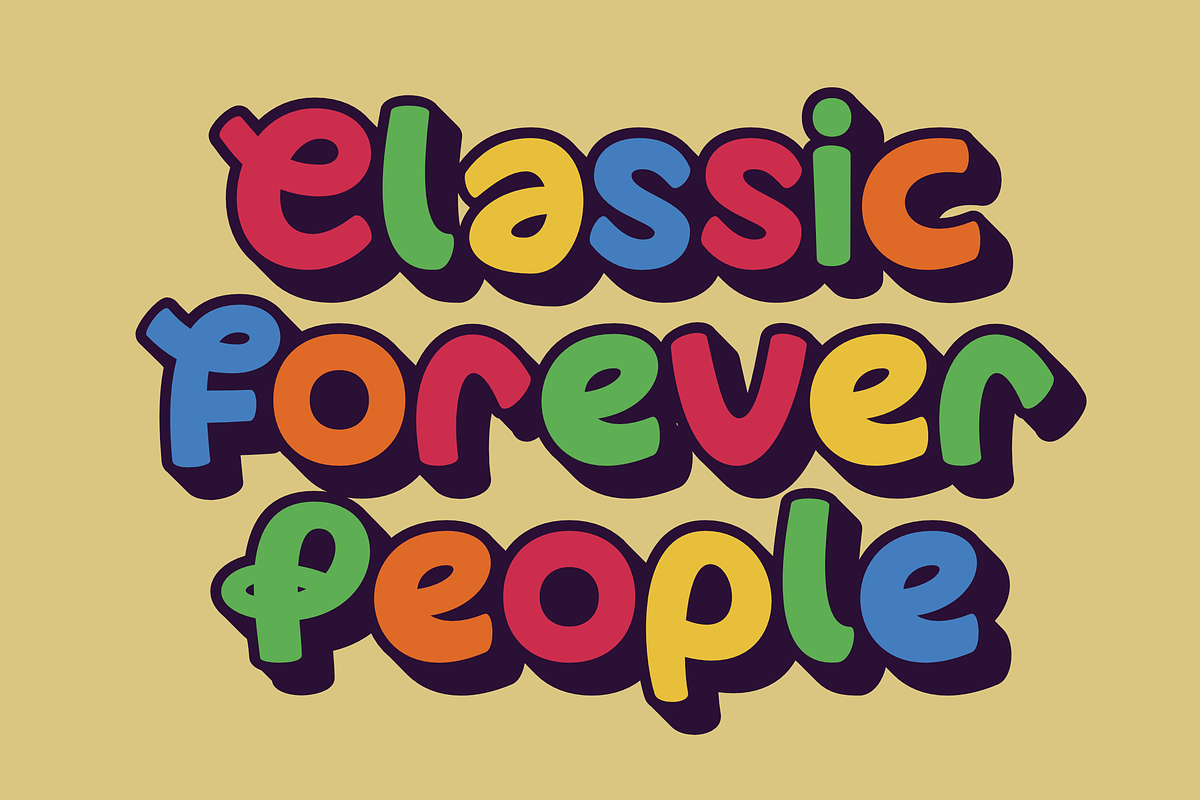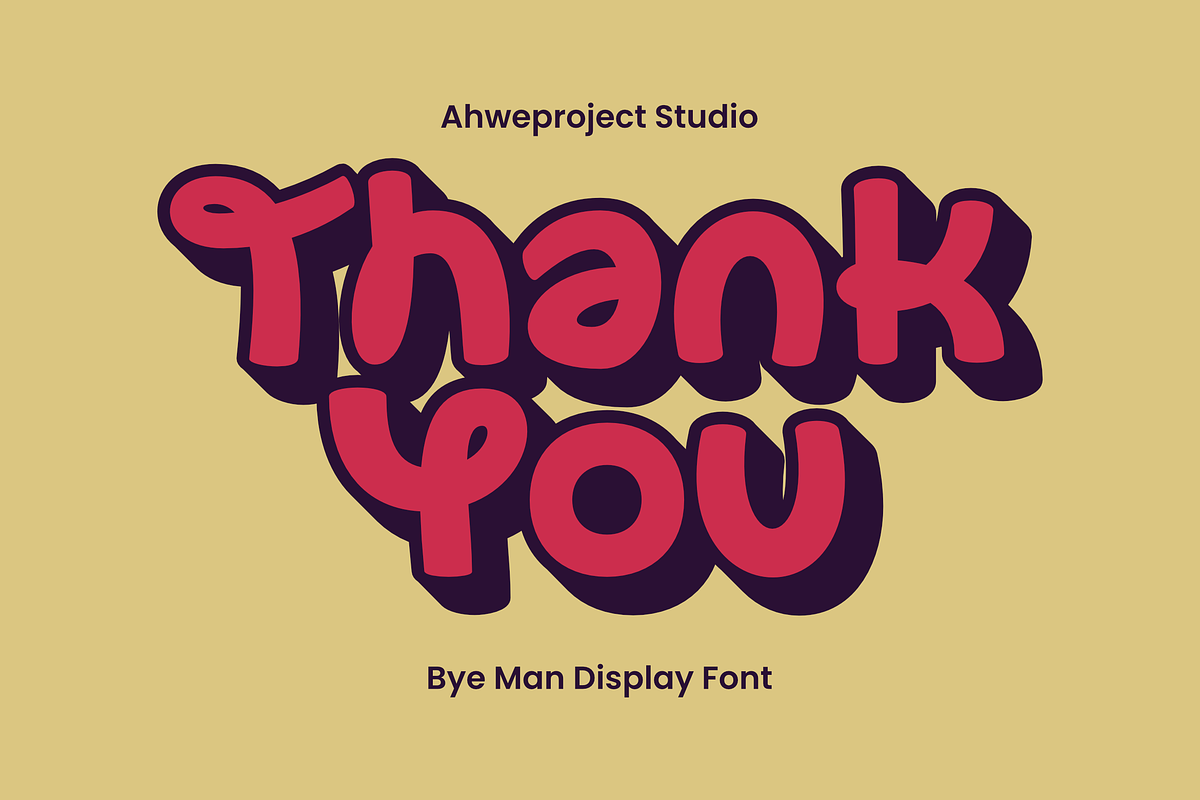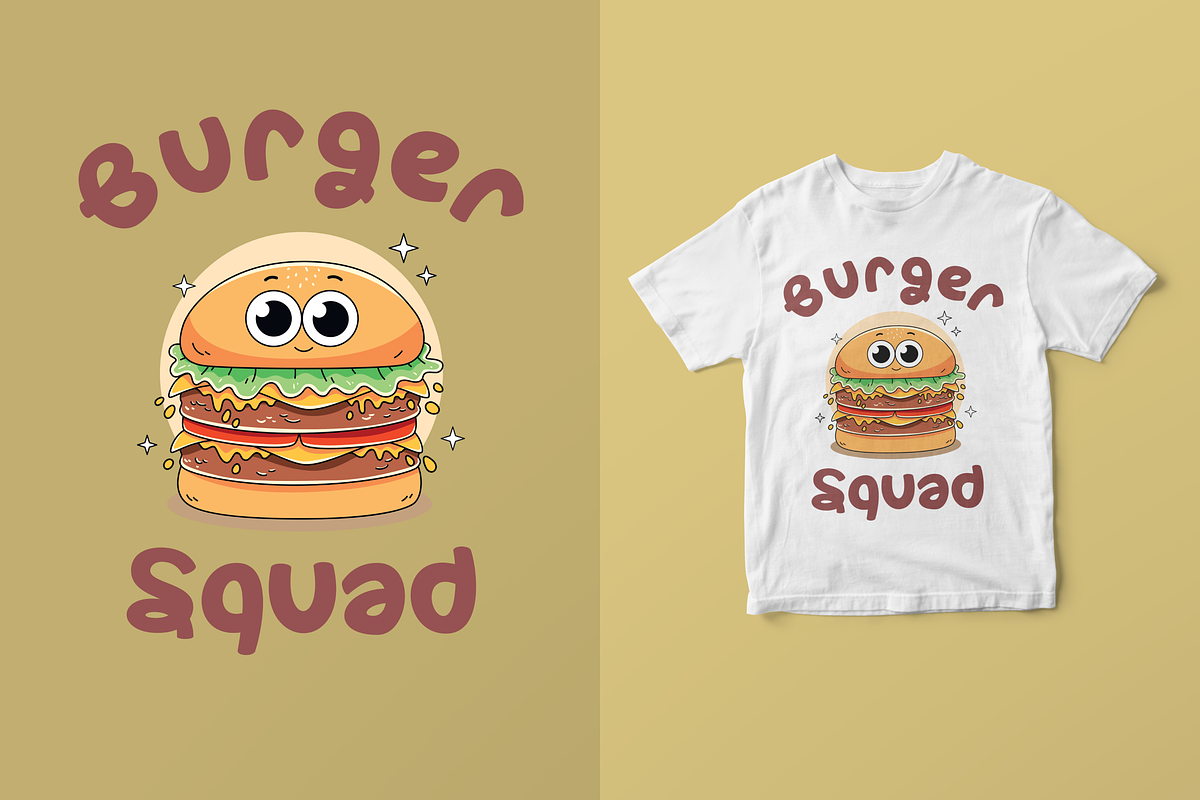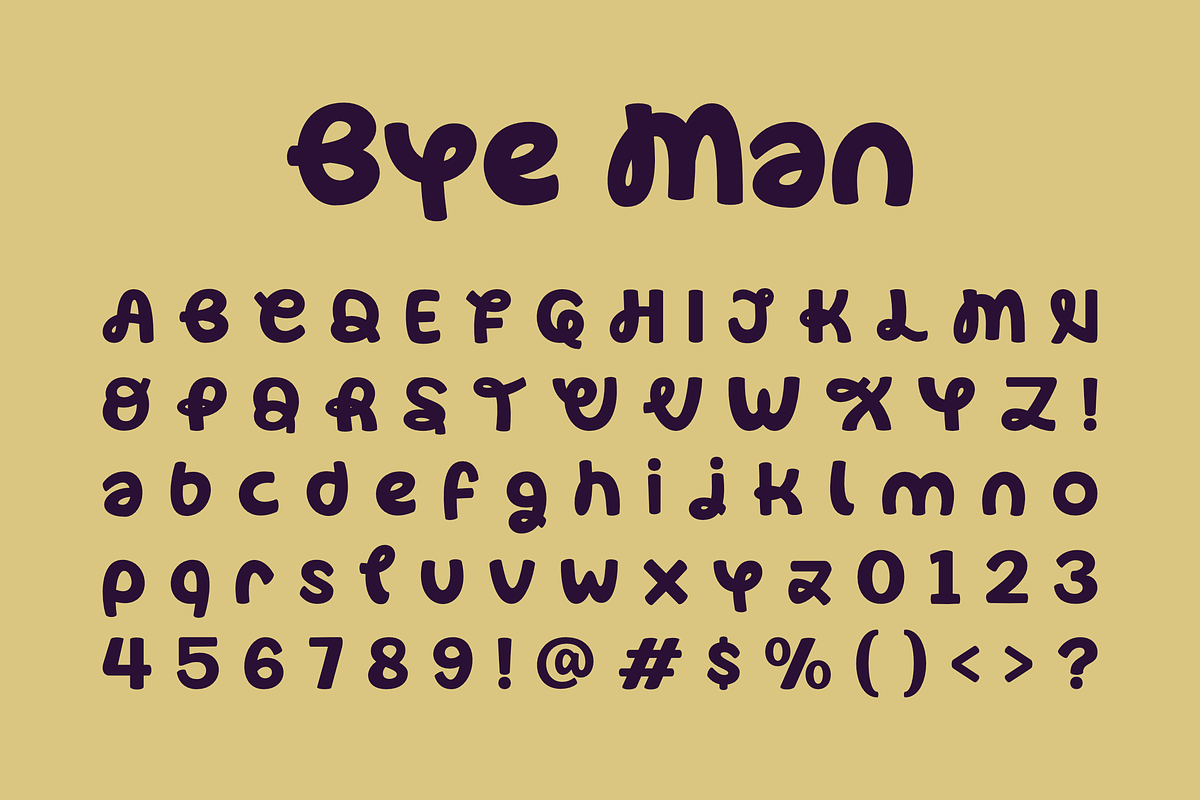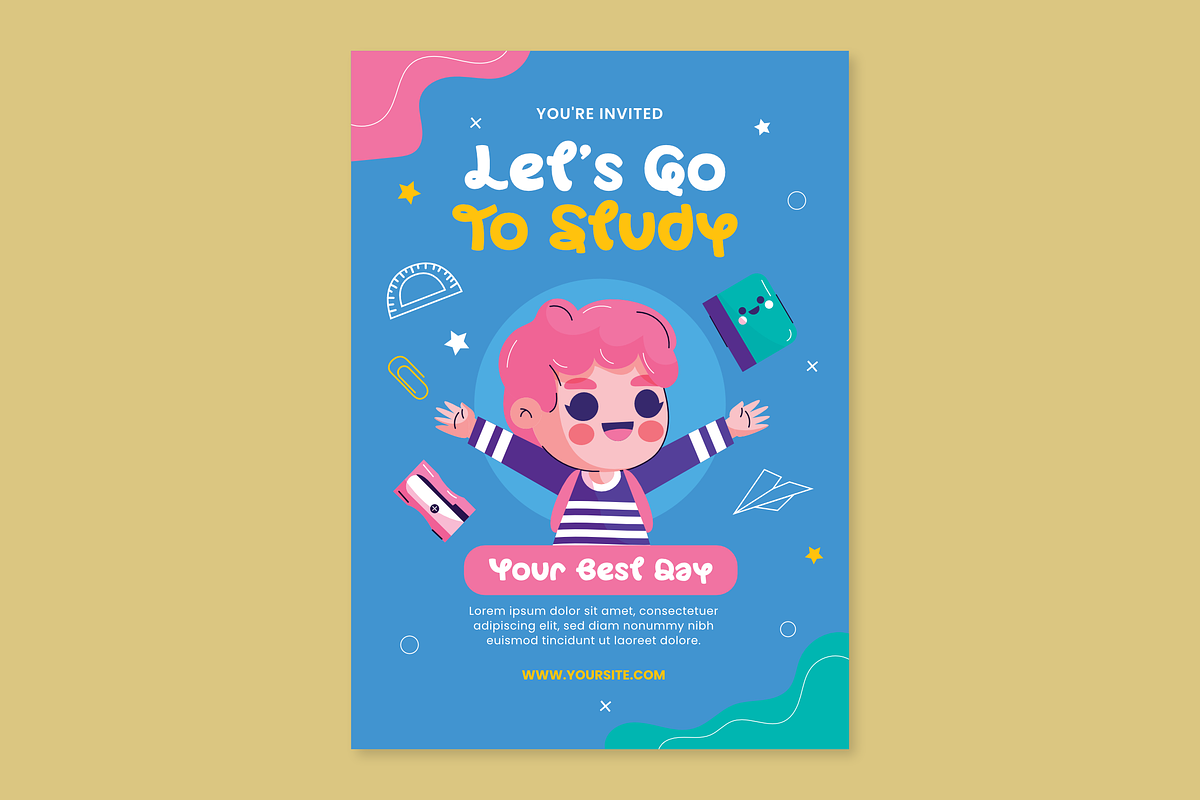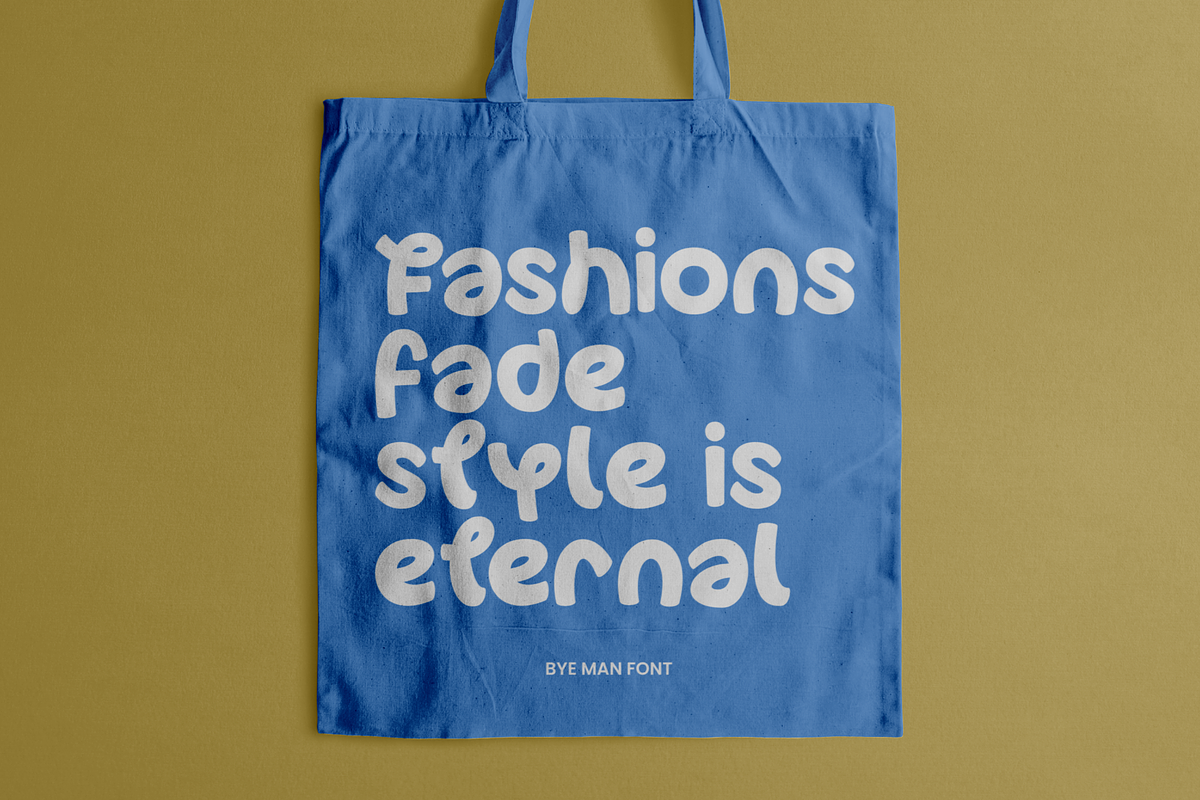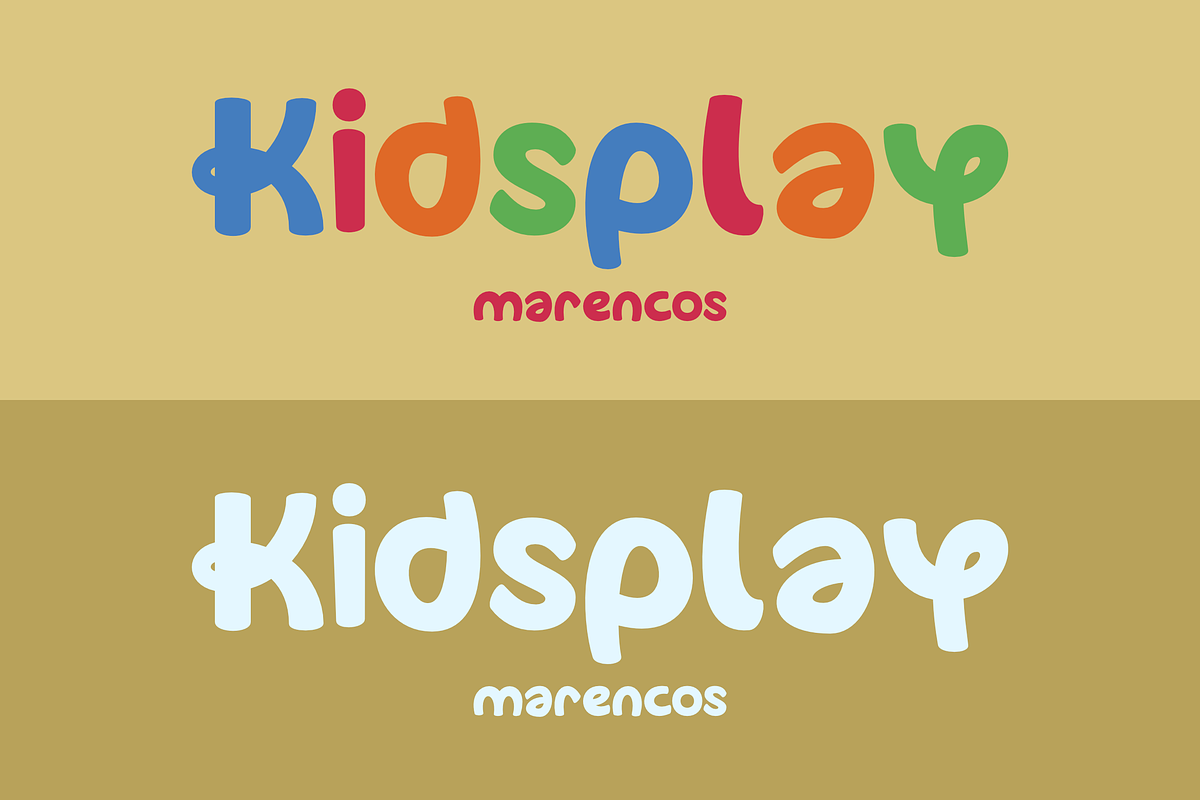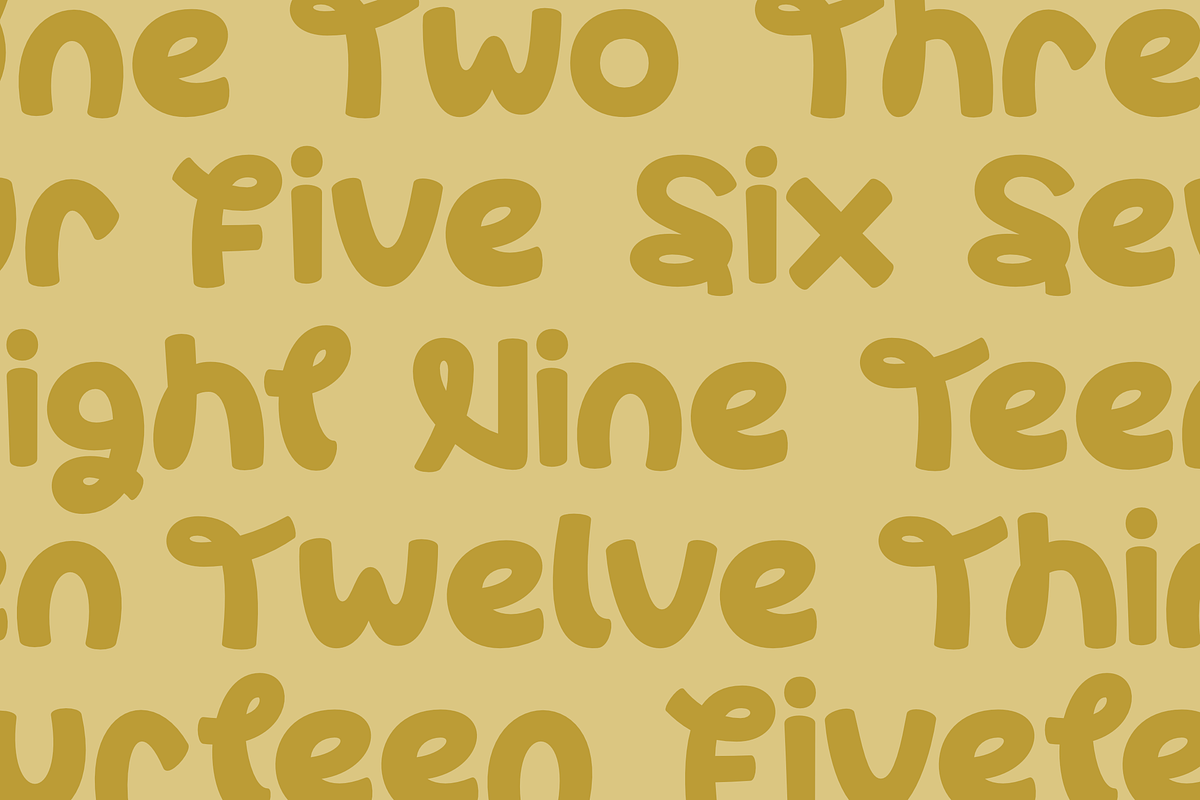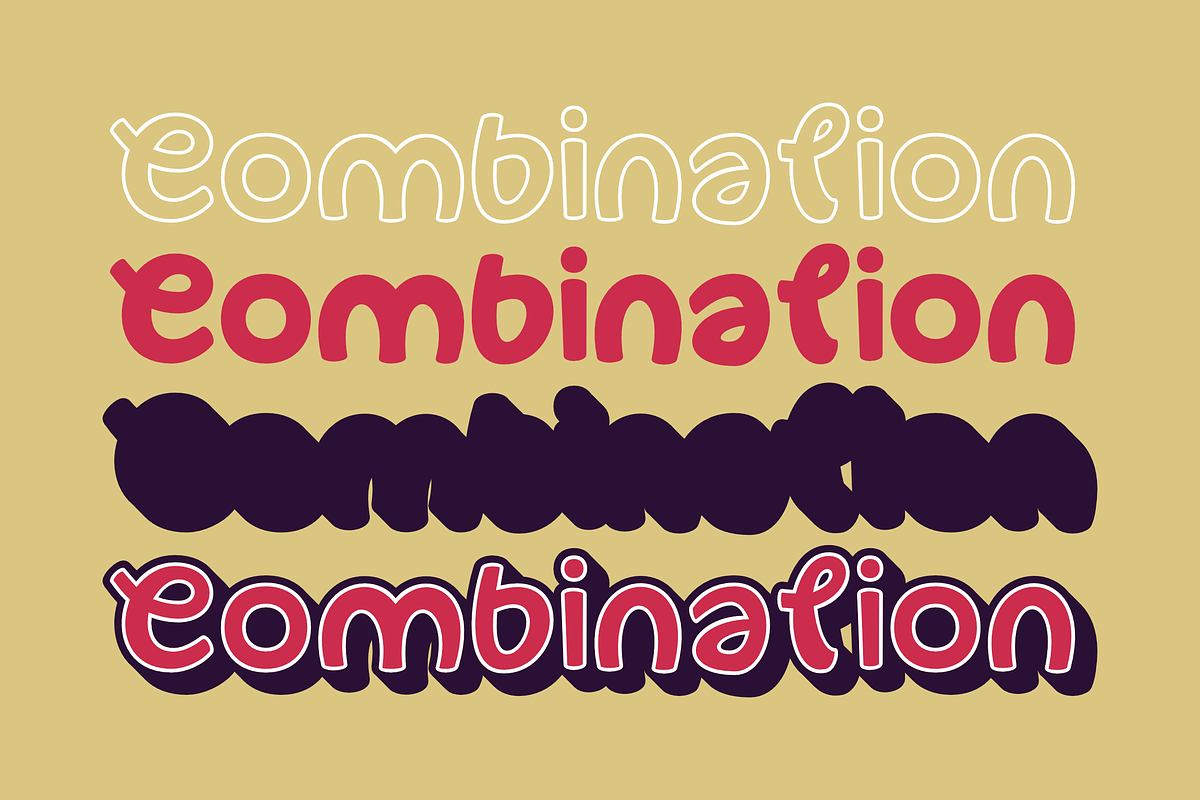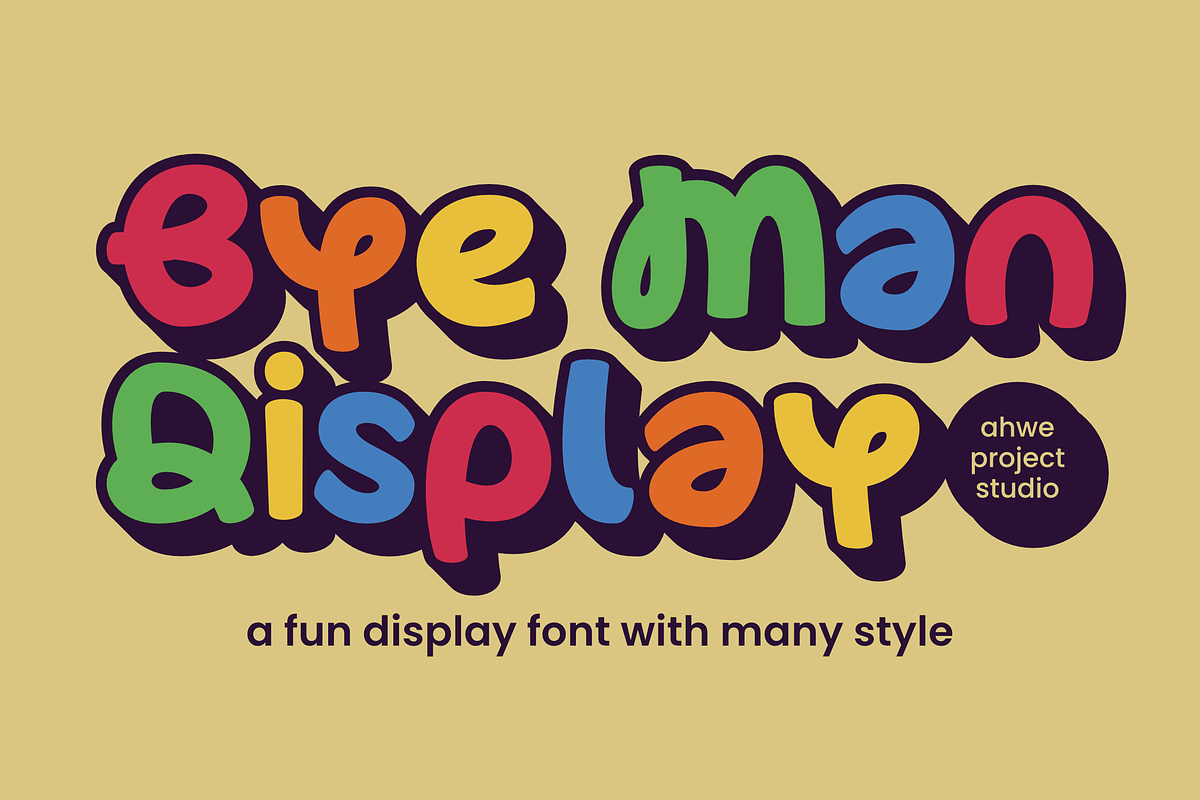
Bye Man
Bye Man is a display font that combines bold letters and unique letterforms. This font can be used for various designs such as birthday invitations, children’s tshirts, logos, headlines, posters, and so on. This font is PUA encoded, which means you can access all of the glyphs and swashes with ease!